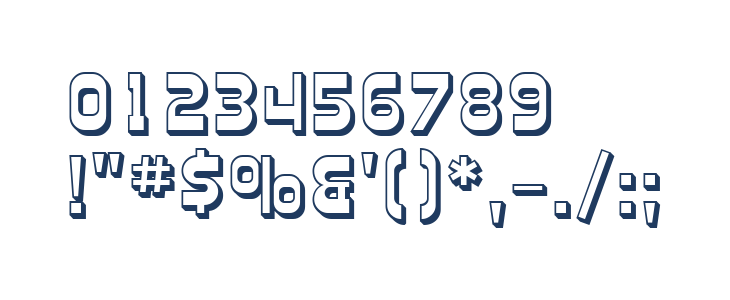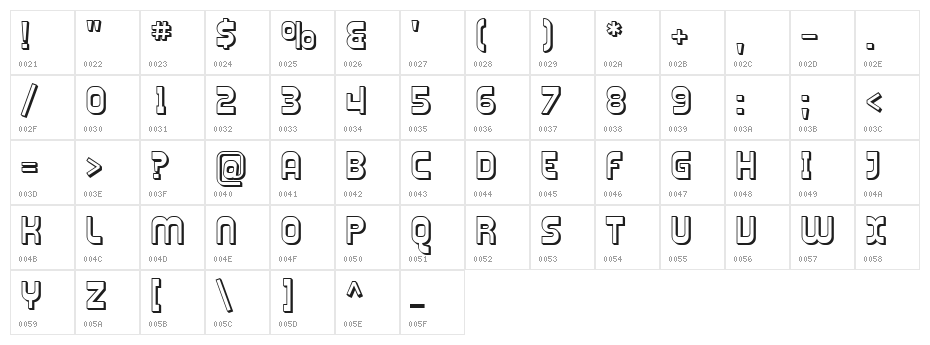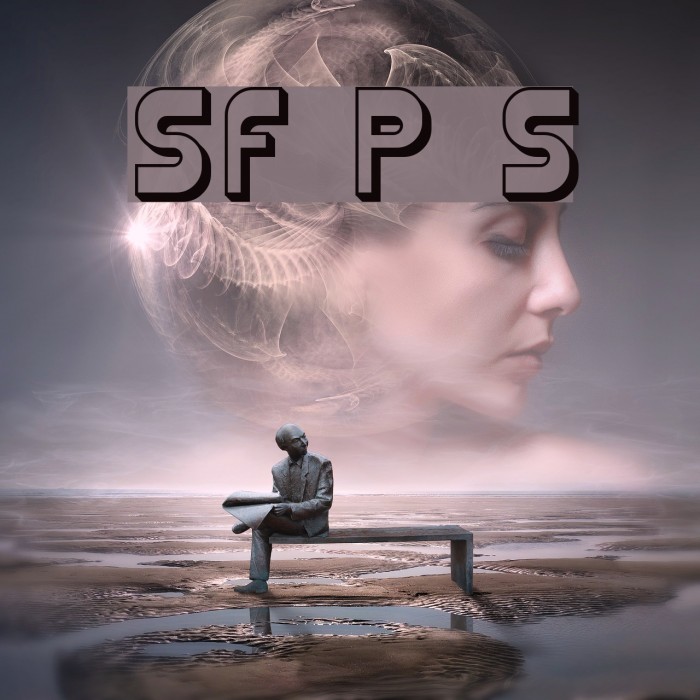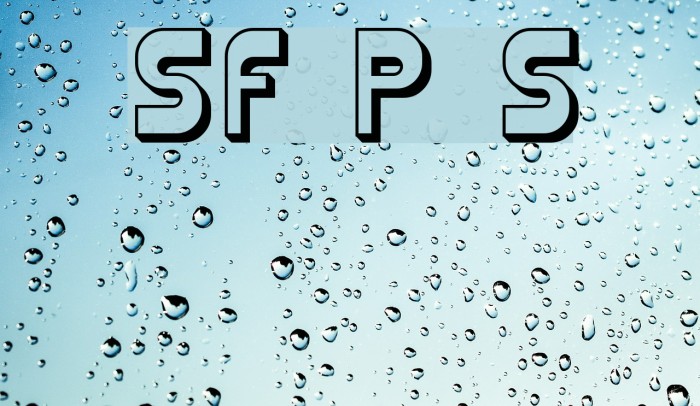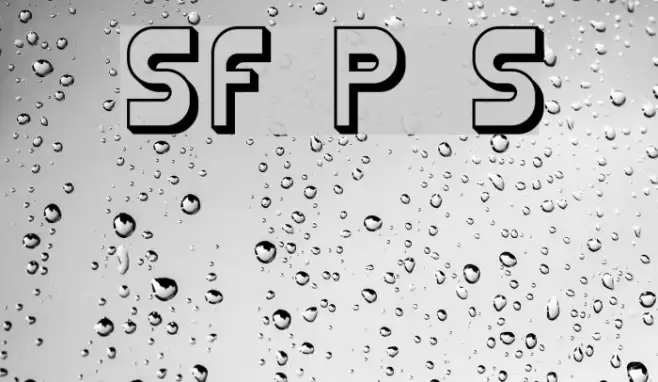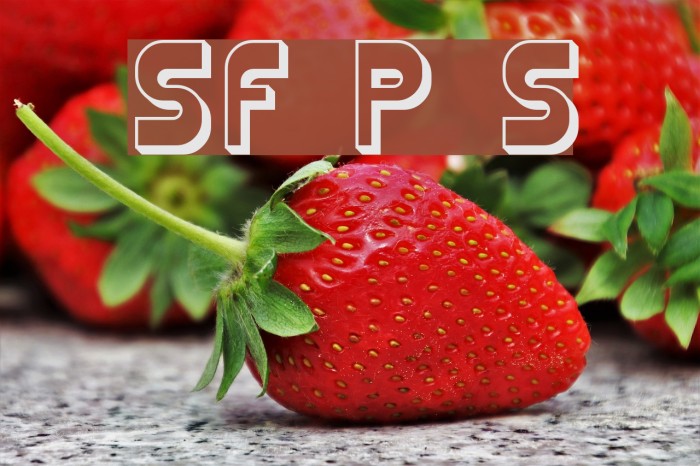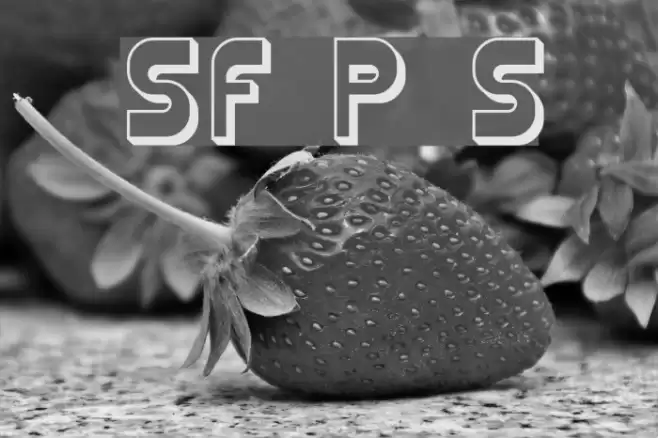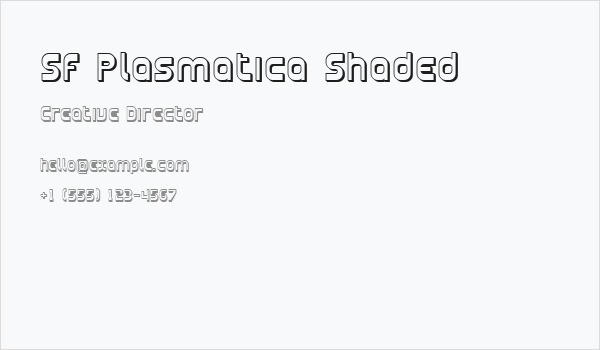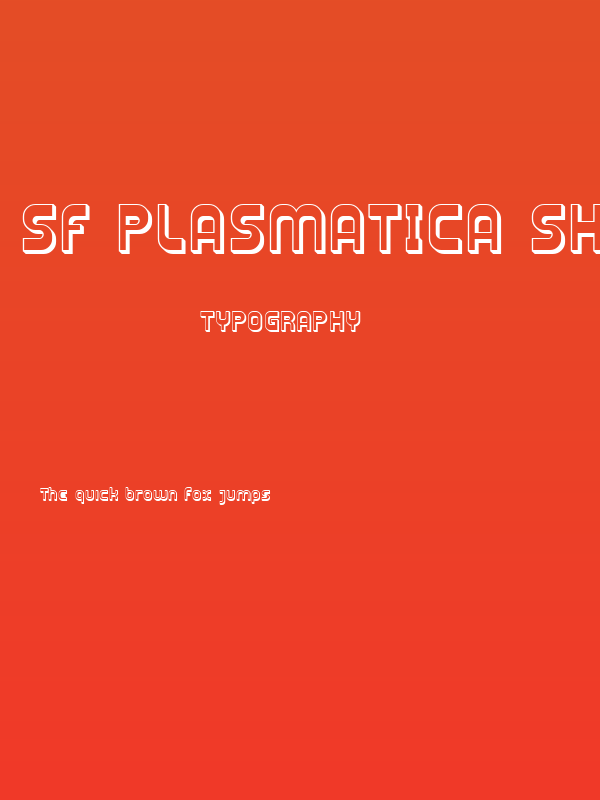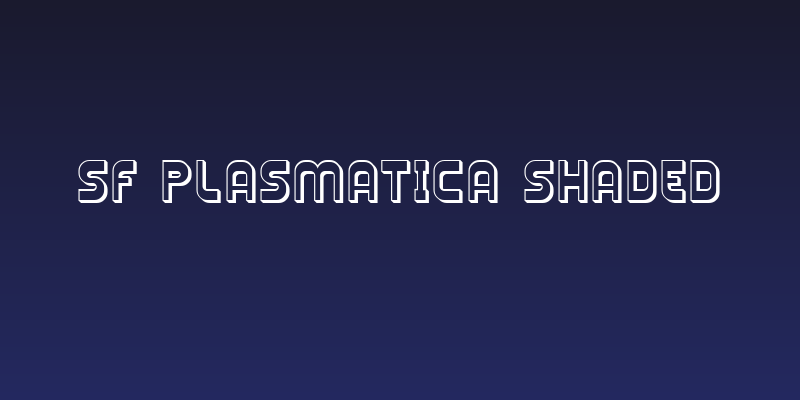
SF Plasmatica Shaded Font
SF Plasmatica Shaded Description
This font features a bold, futuristic design with a distinct three-dimensional effect created by its shaded outlines. The characters are geometric and uniform, with rounded edges that soften the overall appearance. The uppercase and lowercase letters maintain a consistent style, offering a cohesive look. The numerals and special characters are designed to match the letterforms, ensuring a harmonious appearance across all text. The font's unique style makes it stand out, ideal for projects that require a modern and innovative touch.
| Proposed Projects | Ideal for sci-fi themed projects, technology branding, video game titles, and modern posters. |